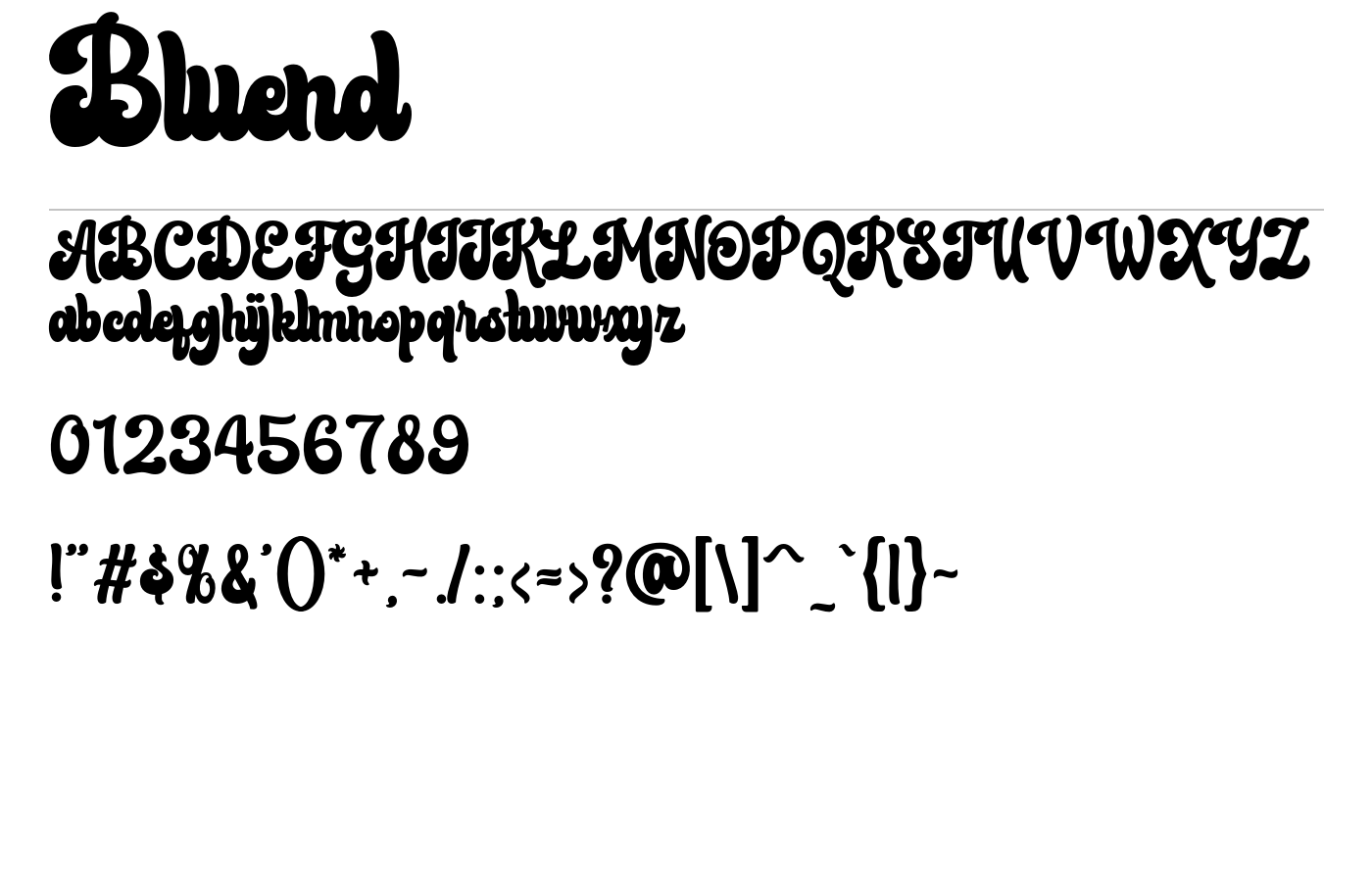
Bluend is a bold, playful script font with thick, rounded strokes that create a friendly and lively feel. Its dense, curvy letterforms and high x-height make it perfect for eye-catching titles or logos that want to convey warmth and fun with a retro-inspired charm. This font works well in branding, posters, and packaging where a distinctive, approachable style is desired.
Bluend Font
About Bluend Font
| Font family | Bluend Font |
| Designer | Dida Ahluddin |